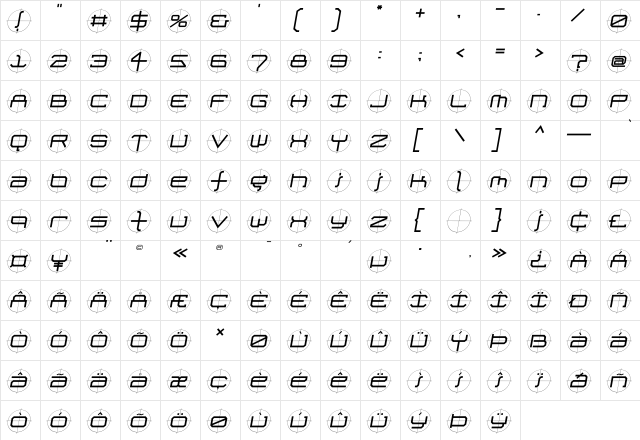
FutureKill MediumSkew
Design Context for FutureKill Typeface
FutureKill channels digital-age aesthetics through its sharp, structured letterforms — ideal for brands that want to signal innovation.
Pro Tip: Try FutureKill with generous letter-spacing in UI labels and navigation — the geometric forms benefit from room to breathe.